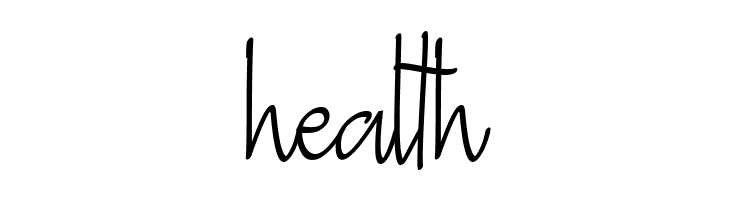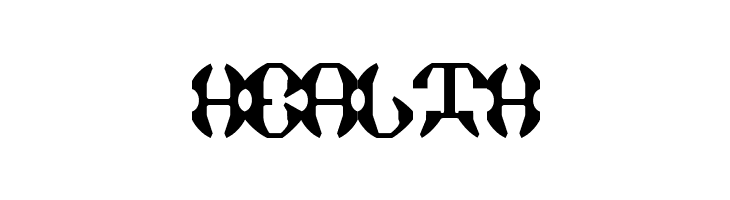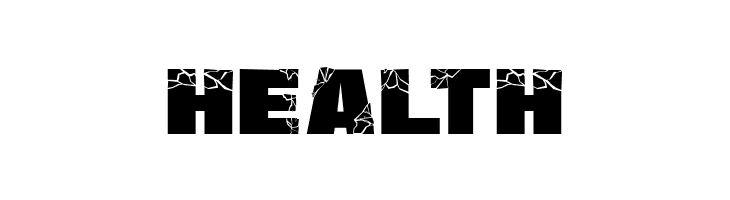
A playful and dynamic handwritten font with fluid strokes and a casual style.
A playful, handwritten font with elongated, irregular characters.
An elegant script font with intricate swirls and flourishes.
A bold, playful font with a three-dimensional shadow effect and dynamic curves.
A modern, handwritten font with elegant, flowing lines and a personal touch.
A tall, slender, and playful handwritten font with a modern touch.
A whimsical and playful font with curly, looping strokes and decorative flair.
A bold, geometric font with angular, interlocking patterns.
A bold, distressed font with a shattered effect, perfect for impactful designs.
An elegant script font with flowing, cursive letters and a classic style.